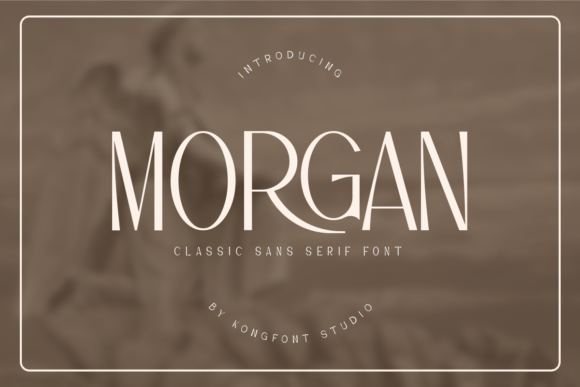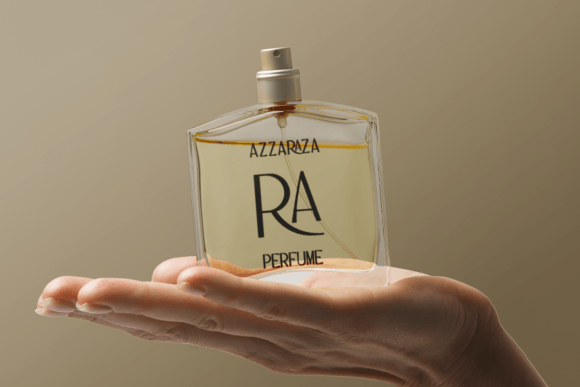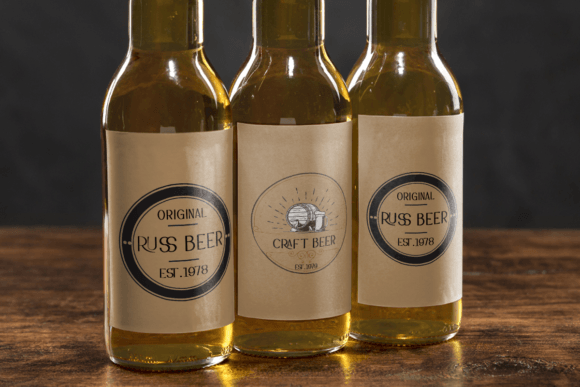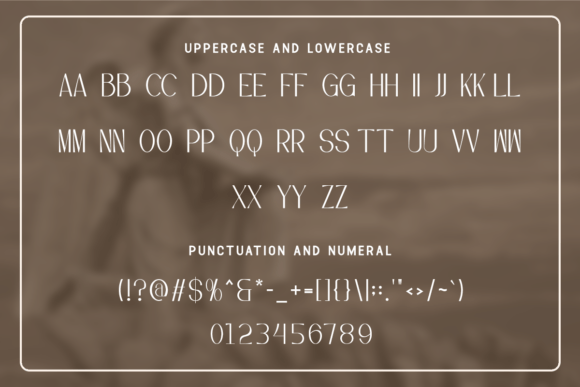
Morgan Font: An Elegant & Minimalist Sans Serif for Modern Branding
About the Morgan Font
Presenting Morgan Font, a unique and stylish typeface that will make your work stand out. Morgan Sans Serif Font is a sleek and versatile typeface that embodies modern simplicity and elegance. With its clean lines and minimalist design, this font is perfect for a wide range of projects, including branding, web design, advertising, and editorial layouts. Morgan offers excellent readability and a professional look, making it ideal for both digital and print applications. Whether you’re designing a website, creating a logo, or crafting a brochure, Morgan Sans Serif Font provides a contemporary and refined touch to elevate your work.
Morgan Font Example